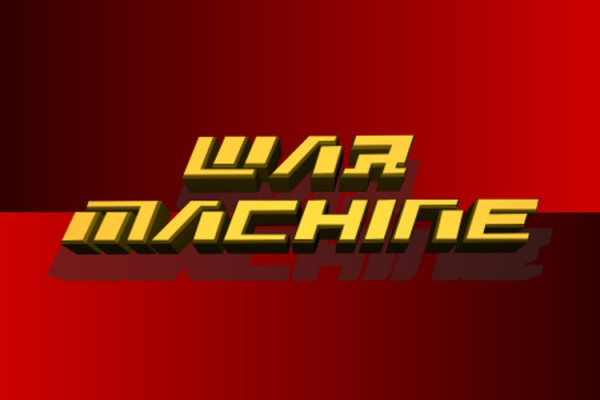
War Machine Font
War Machine Font, This bundle features strong, confident and powerful typefaces designed to work great with sports logos, club branding, apparel applications, labels and more.